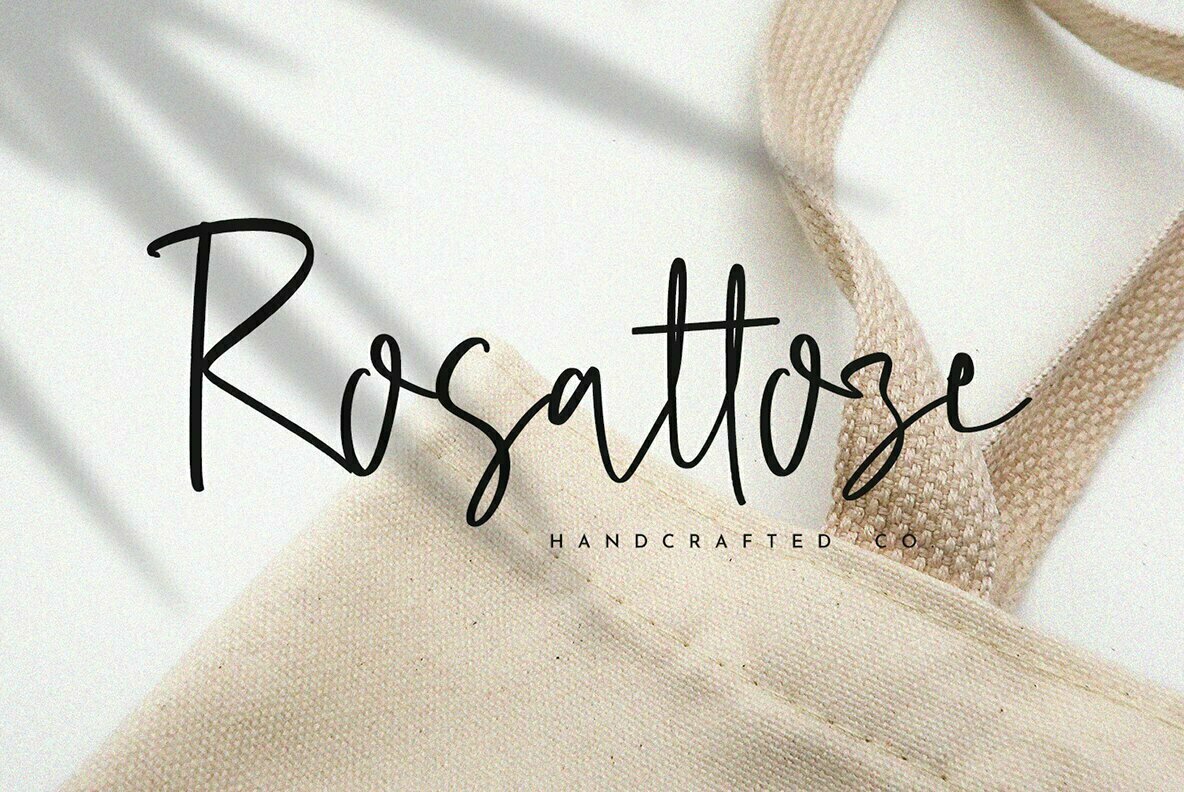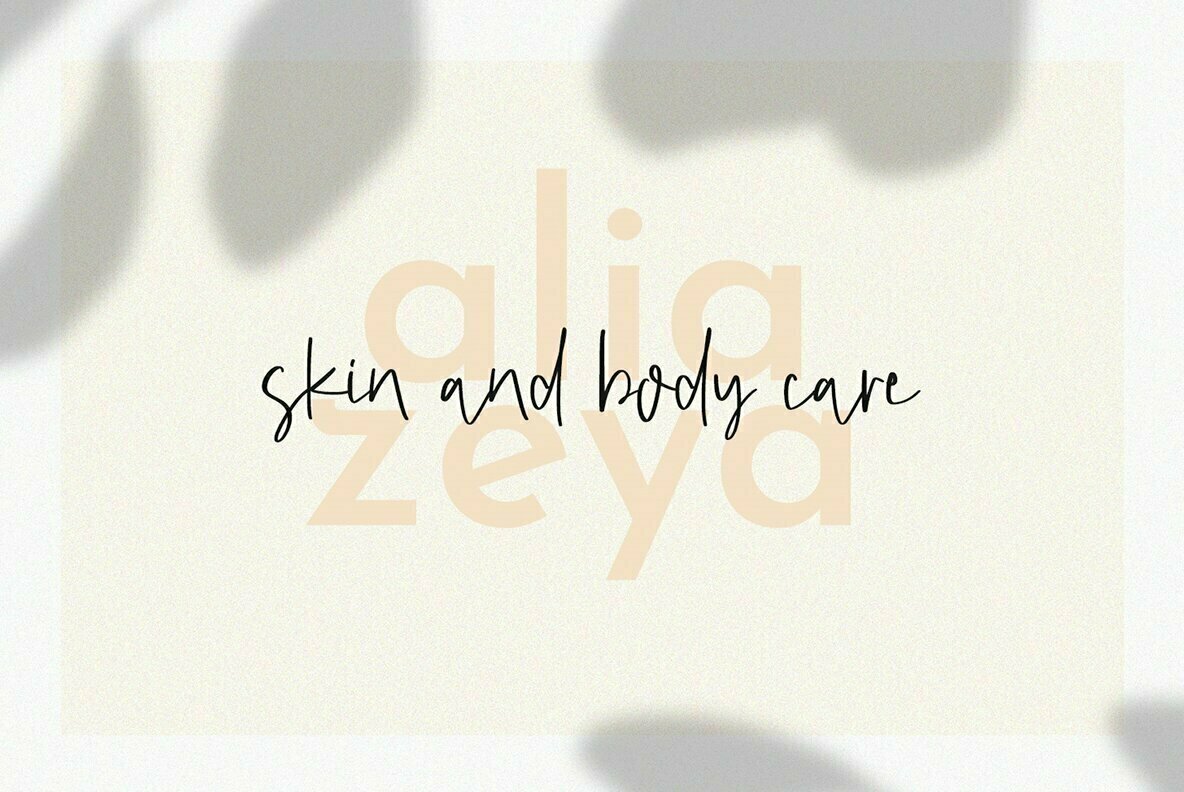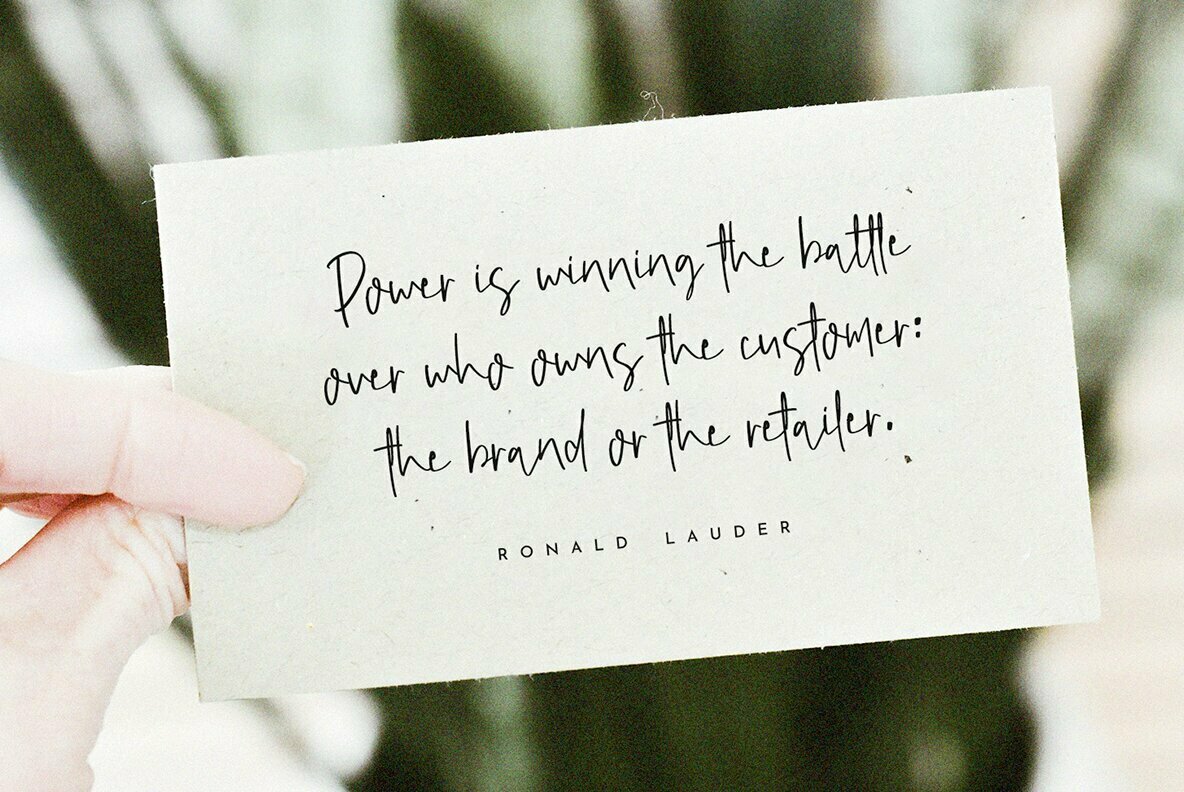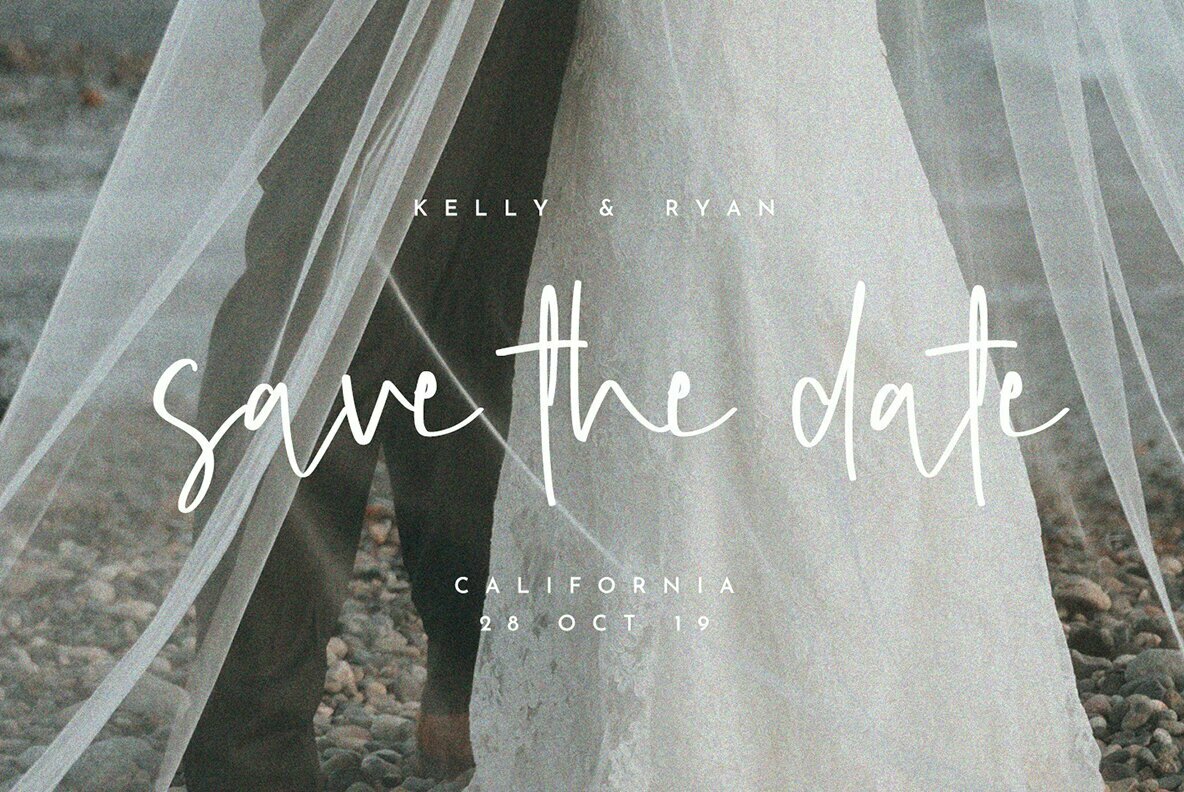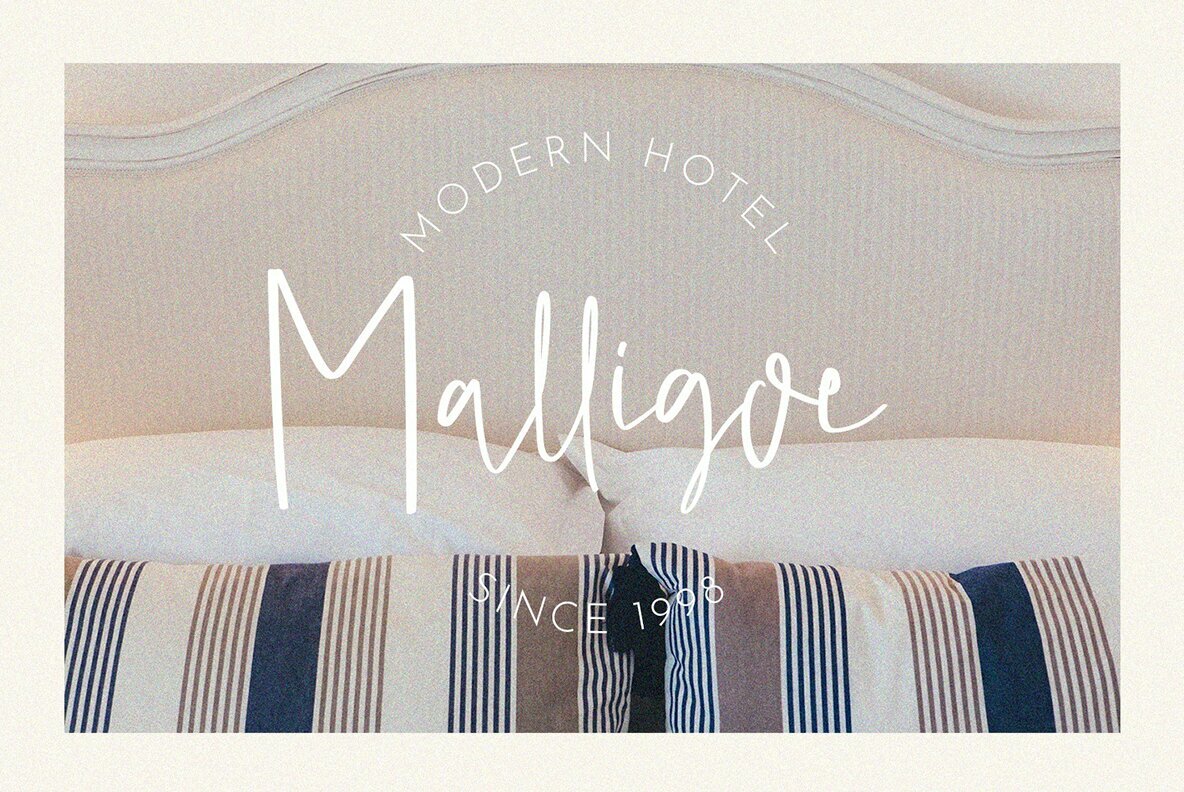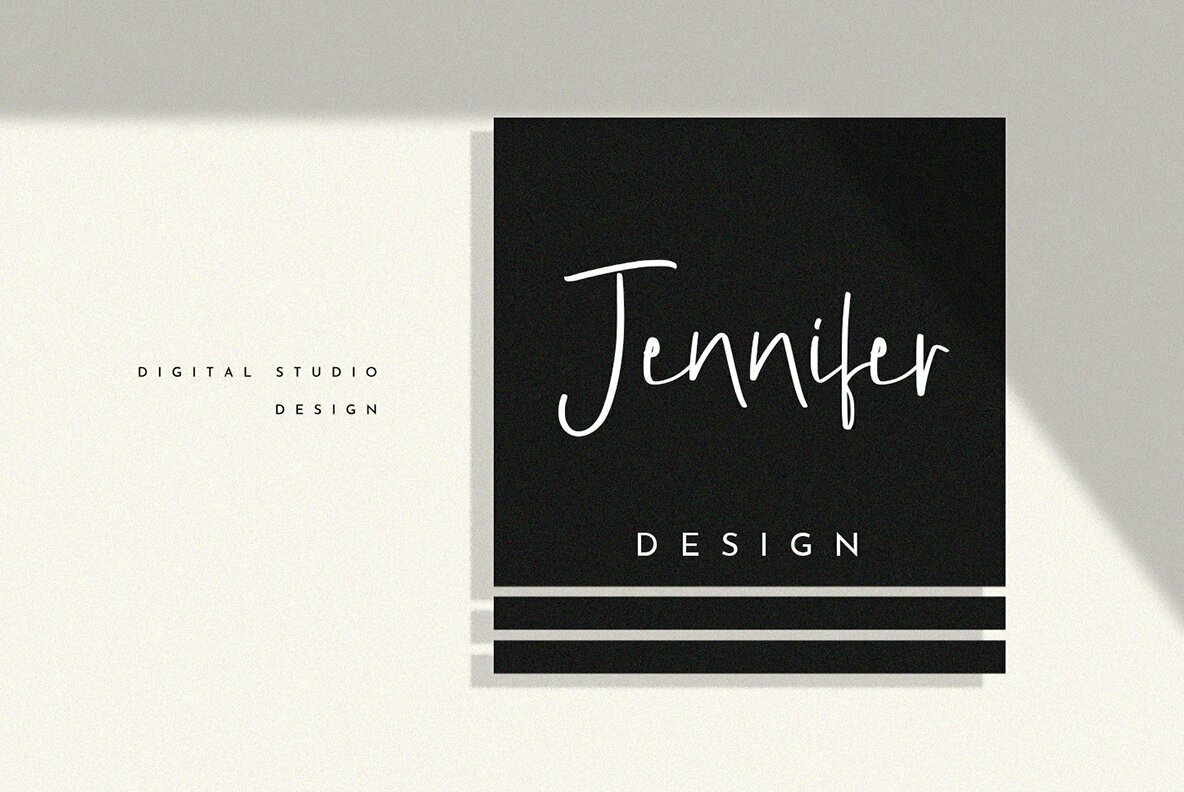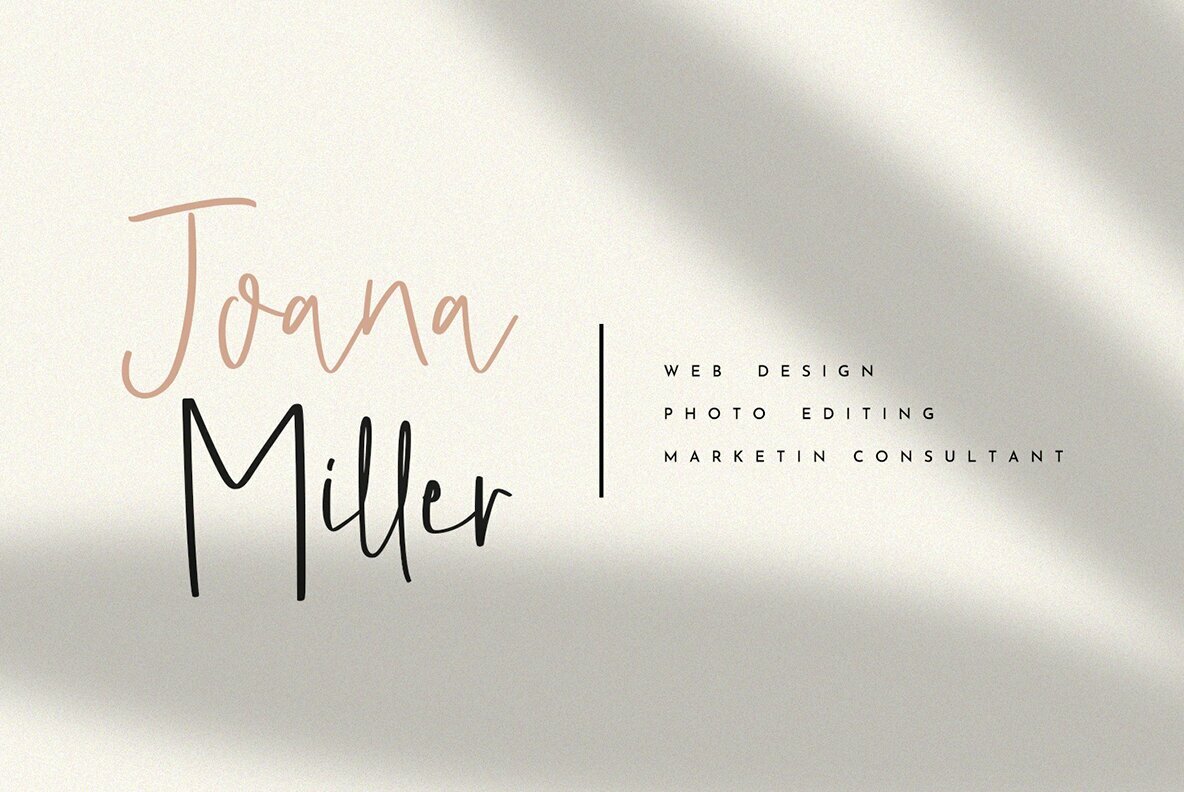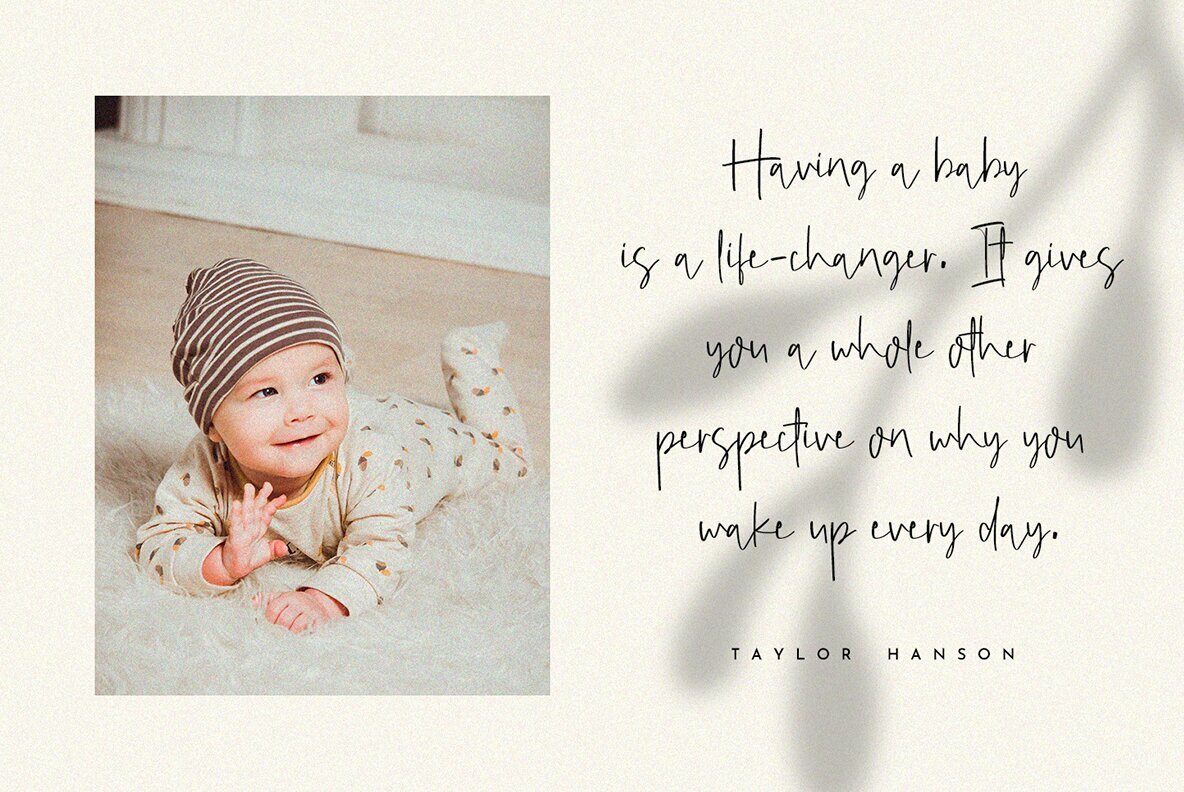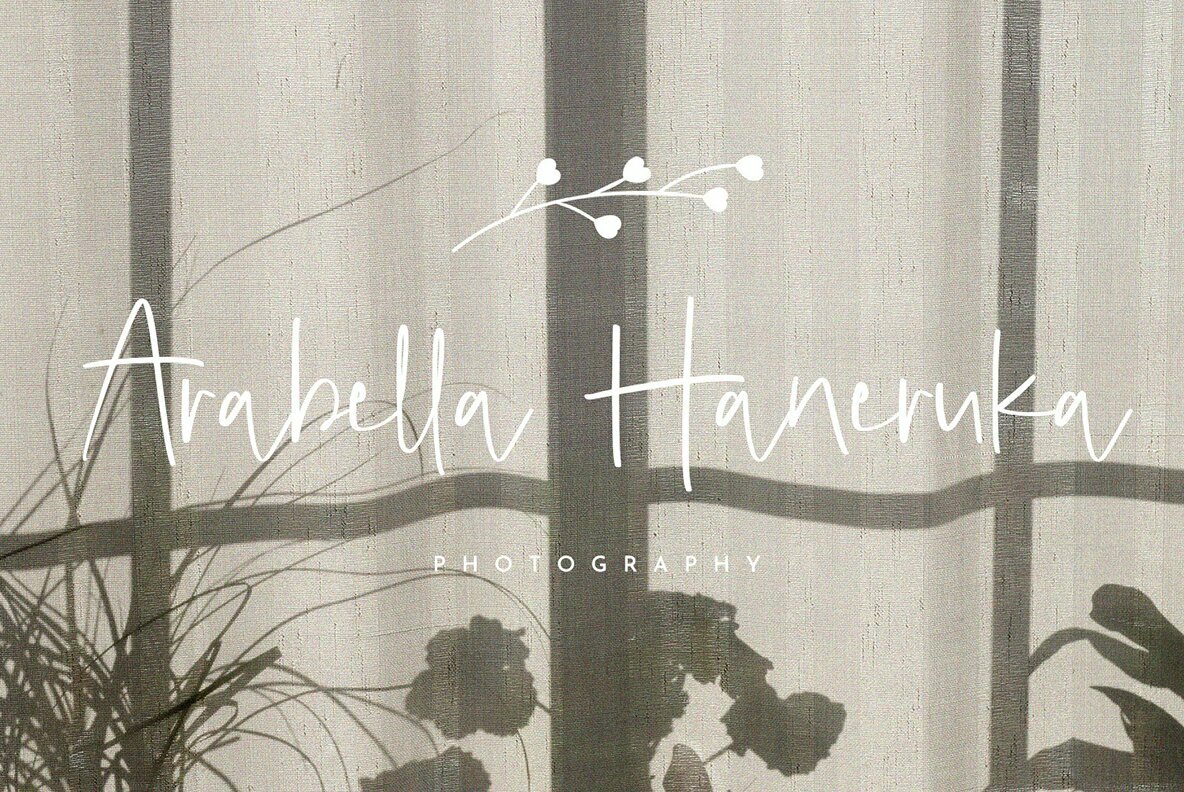
Malligoe Font
Malligoe
Malligoe is a versatile script font that artfully blends elegance with a feminine charm, making it an ideal choice for diverse graphic design projects. Whether you're creating wedding invitations, magazine covers, or personalized mugs, Malligoe infuses a sense of sophistication into every detail. Boasting a range of features, from uppercase and lowercase characters to numerals and punctuation, Malligoe provides designers with extensive creative possibilities. Fully PUA encoded, it embraces unique ligatures and offers broad international language support, ensuring your designs connect with a global audience.Malligoe: An Elegant Script Branding Font
The feminine elegance of Malligoe is matched by its creative versatility, making it a compelling addition to any designer's toolkit.